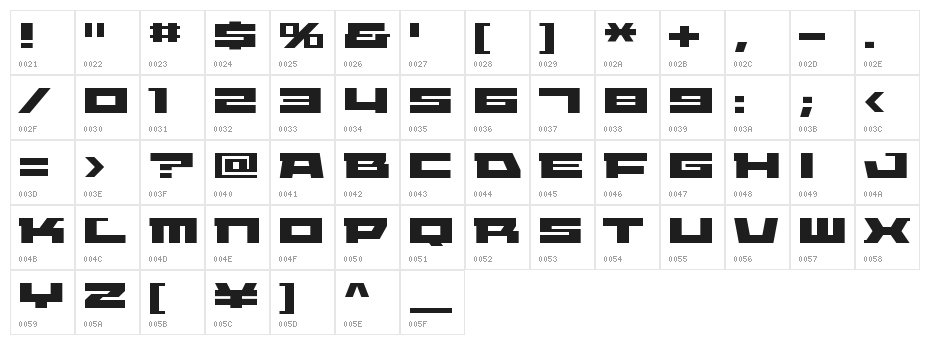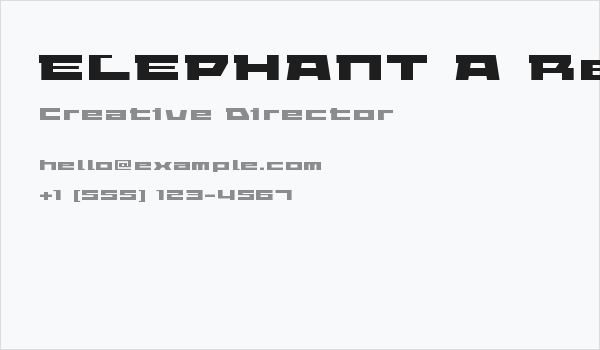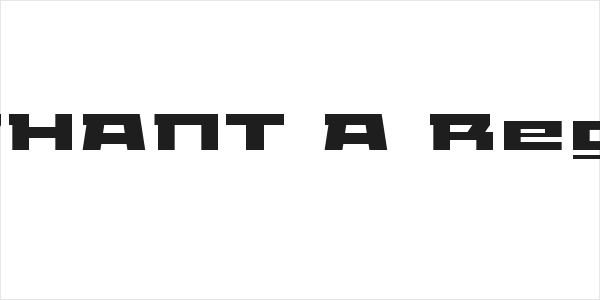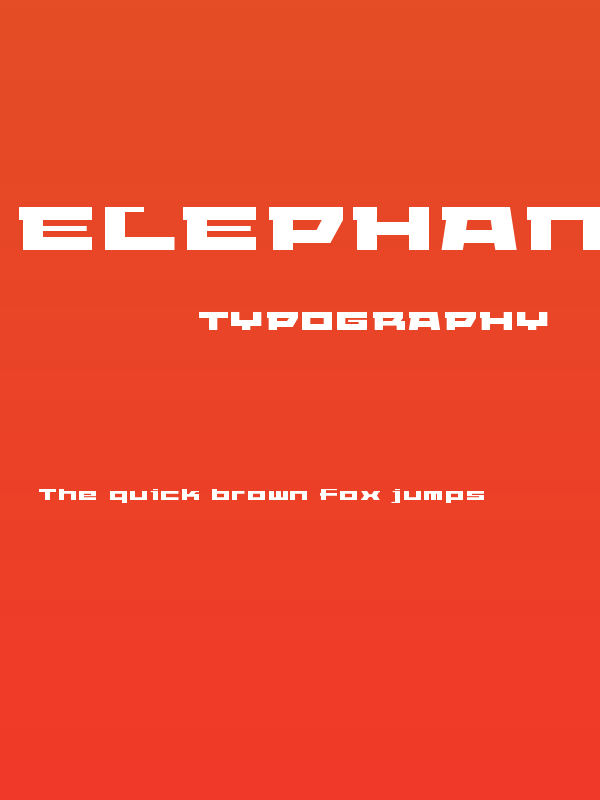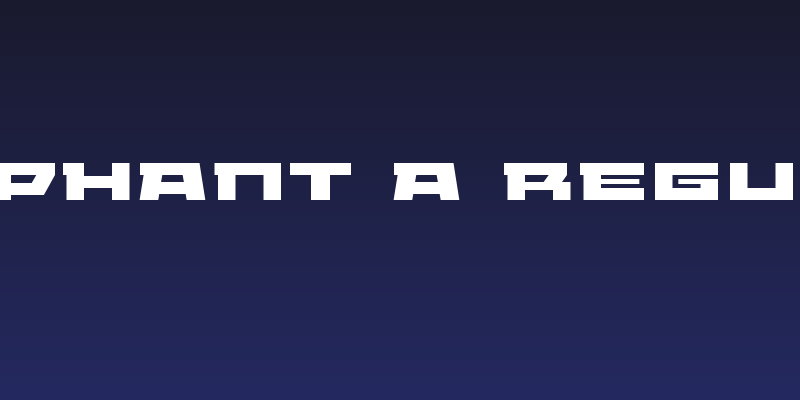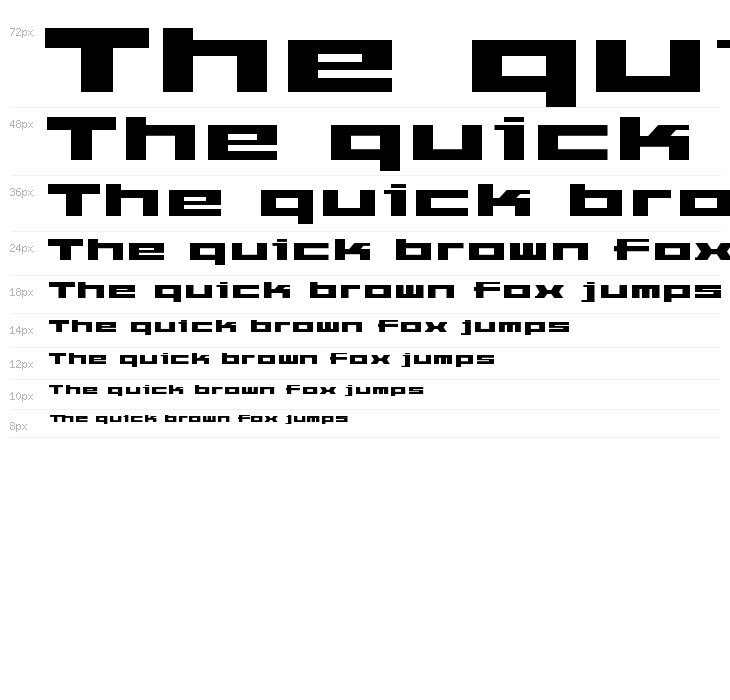
ELEPHANT A Regular Font
ELEPHANT A Regular Description
This font features a bold, geometric style with strong, angular lines and a modern aesthetic. The characters are constructed with a block-like appearance, giving them a robust and impactful presence. The uppercase and lowercase letters maintain a consistent width, contributing to a uniform look across the typeface. The numerals and special characters follow the same design principles, ensuring cohesion throughout. This font's design is ideal for making a statement, with its striking and assertive form.
Proposed ProjectsIdeal for branding, posters, headlines, and any project requiring a bold, impactful typeface.